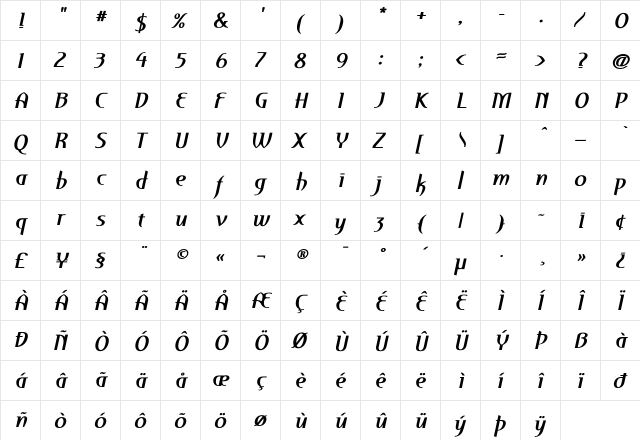
Perceval ItalicBold Font Preview
Perceval ItalicBold
Perceval ItalicBold Font Details
| Style | ItalicBold |
| Foundry | \(c\) Rebels, Designed by Michel Valois |
Design Context for Perceval Typeface
Perceval takes a measured approach to typography — its balanced proportions and neutral character make it a reliable workhorse for both digital and print work. The dynamic lean of this cut emphasises speed and emphasis in any layout. Its bold stroke weight gives it real presence on the page.
Pro Tip: Use Perceval for emphasis, pull quotes, and subheadings where its slanted energy can add rhythm to the layout.